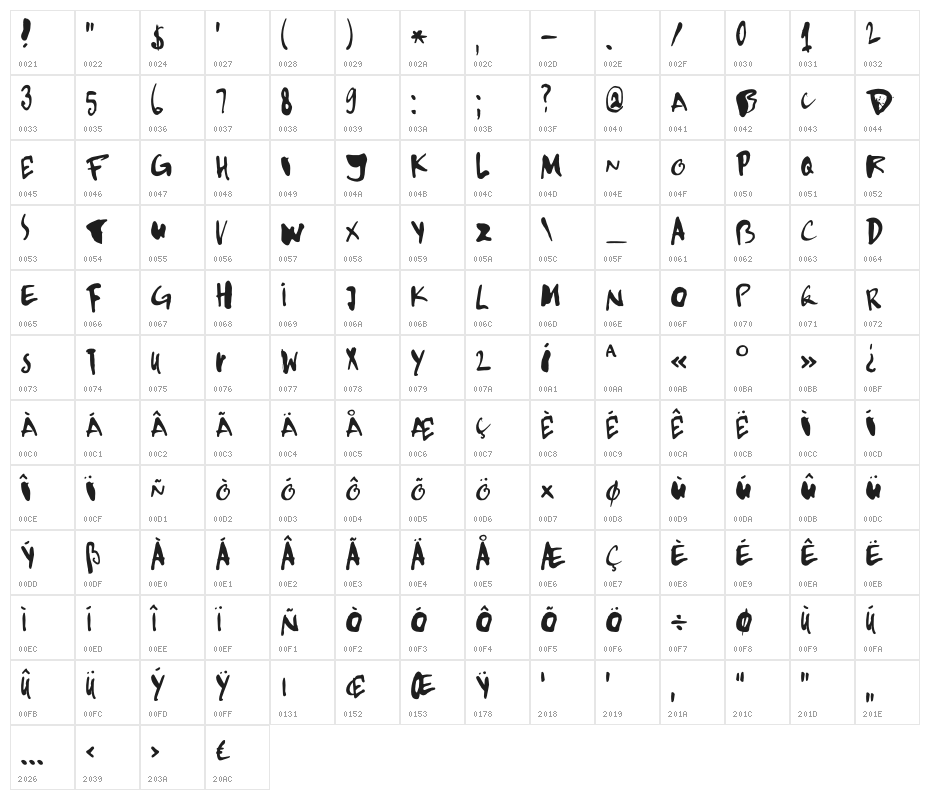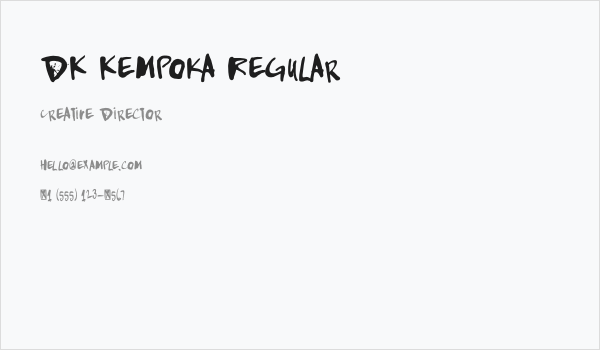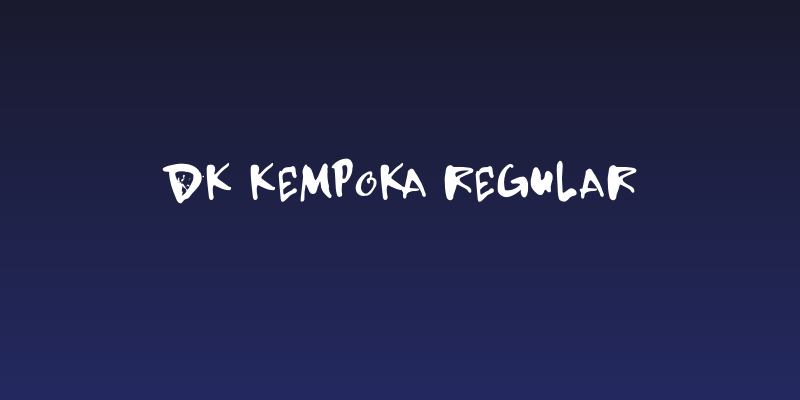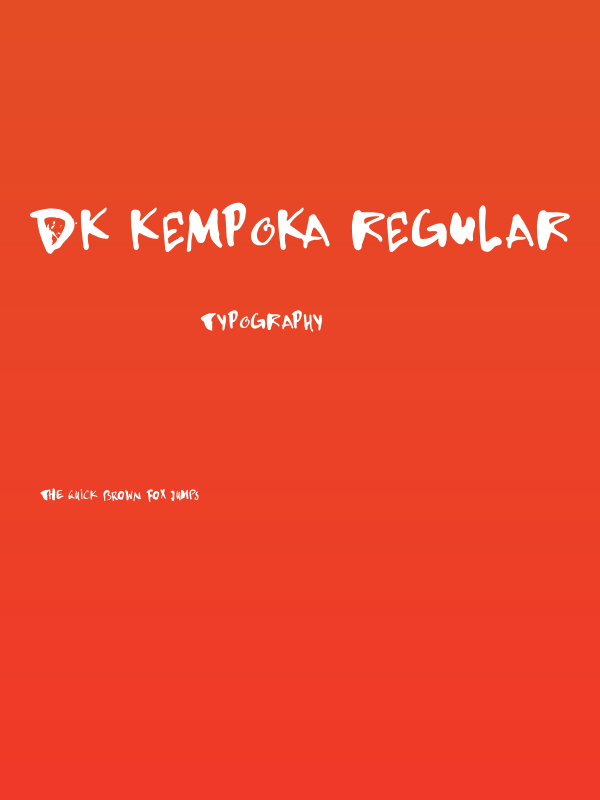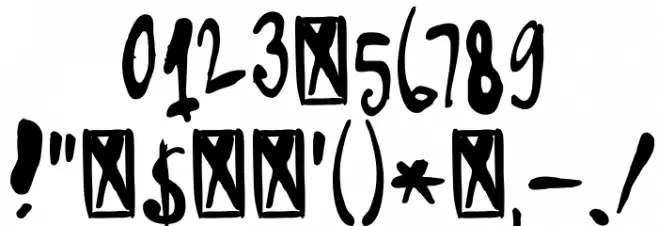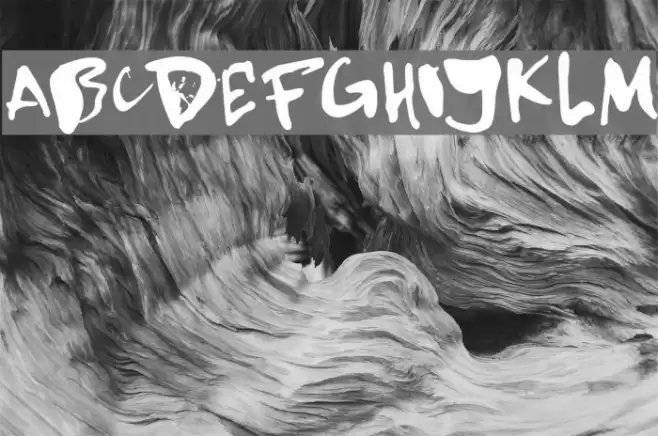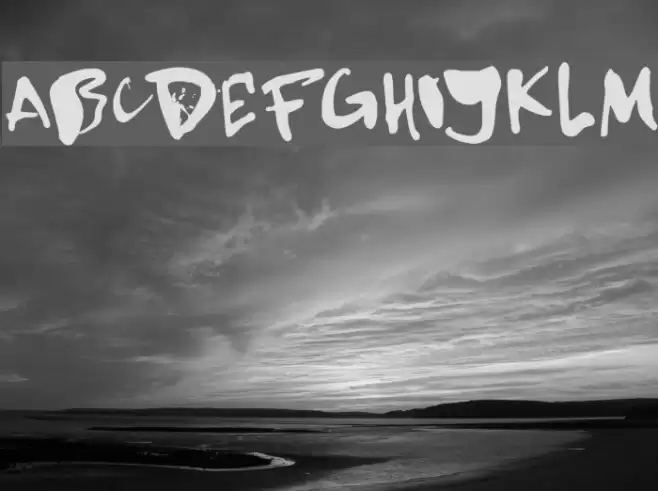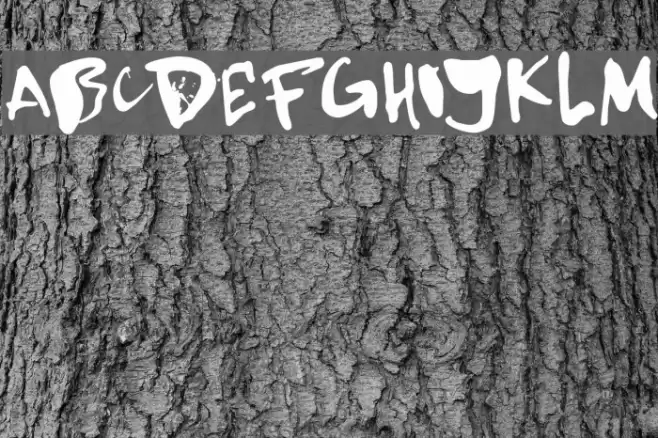
DK Kempoka Regular Font
This font features a bold, expressive style with a hand-drawn appearance. The letters are irregular and dynamic, giving a sense of movement and energy. The strokes are thick and vary in width, creating a high contrast that adds to its dramatic flair. The characters have a playful and artistic quality, making them stand out. The font includes both uppercase and lowercase letters, numbers, and a selection of special characters. Its unique style is reminiscent of graffiti or street art, making it suitable for creative and unconventional projects.
| Proposed Projects | Ideal for posters, album covers, street art-inspired designs, and creative branding projects. |